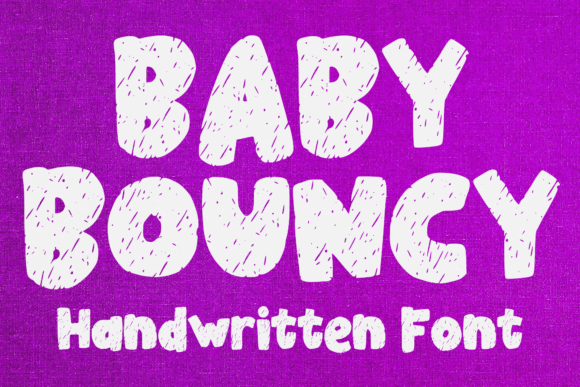
Get Ready to Bounce into Creativity
Have you ever been stuck in a creative rut, staring blankly at your computer screen, wondering what design style would perfectly capture the playful vibe of your latest project? We’ve all been there! That’s why we’re excited to introduce you to the Baby Bouncy Font – a game-changing, textured handwritten font that’s sure to add a dash of fun and whimsy to your designs.
This versatile font is perfect for anyone looking to add a casual touch to their work. Whether you’re creating t-shirts, comics, social media posts, or kid’s book designs, Baby Bouncy Font is the perfect companion to help you bring your ideas to life. And the best part? It’s incredibly easy to use, making it a valuable asset for designers of all levels.
Baby Bouncy Font Key Features
- Unique Characteristics: The Baby Bouncy Font features a playful, bouncy feel, with each letter having a unique and whimsical design, perfect for creating a fun and childlike atmosphere.
Baby Bouncy Font Review
Overall, I think the Baby Bouncy Font has a lot going for it. ✨ The playful, whimsical feel is perfect for children’s products or nursery decor. The bold lines and rounded edges give it a fun, bouncy vibe that’s hard to resist.
One of the things I like best about this font is its versatility. ✨ It works well in both digital and print applications, making it a great choice for a variety of projects. The font also comes in a range of weights and styles, from light to bold, and with or without ornaments.
- ⚠️ The font may be too playful for more serious or formal applications. It’s definitely not suitable for corporate or professional branding.
- ⚠️ Some users may find the font too childish or cutesy, which could be a drawback for certain projects.
- ⚠️ The font may not be as legible in smaller sizes or at a distance, which could make it difficult to read.
Overall, I think the Baby Bouncy Font is a fun and creative choice for the right project. While it may have some limitations, its playful vibe and versatility make it a great option for designers looking to add some personality to their work.
To get the most out of the Baby Bouncy Font, try the following tips:
– Use it for titles or headings to add a playful touch to your design.
– Experiment with different font sizes and colors to create a visually appealing effect.
– Pair the Baby Bouncy Font with other playful fonts to create a fun and whimsical look.
The Baby Bouncy Font is commonly used for:
– Children’s books and educational materials.
– Party invitations and decorations.
– Social media graphics and ads.
– Branding and marketing materials for companies that target a young audience.
Alternatives to Baby Bouncy Font
Comic Sans
Comic Sans is a playful, casual font that is often used for informal designs and children’s materials. It is similar to Baby Bouncy Font in its rounded and childlike appearance, but it has a more established and widespread use. Use Comic Sans for designs that require a friendly and approachable tone, such as newsletters, invitations, and children’s books.
Great Vibes is a modern, cursive font that is often used for titles and headings. It has a similar feel to Baby Bouncy Font in its flowing and dynamic lines, but it is more elegant and sophisticated. Use Great Vibes for designs that require a sense of fun and playfulness, but also a touch of sophistication, such as wedding invitations, event branding, and packaging.